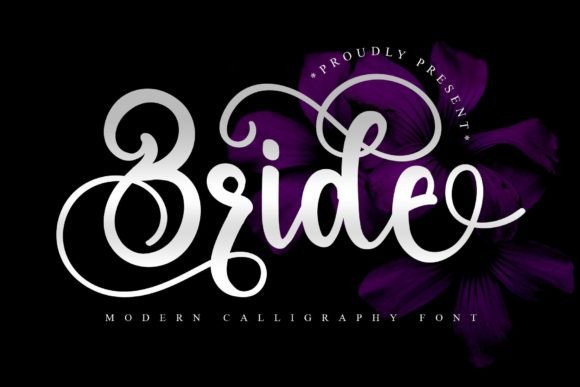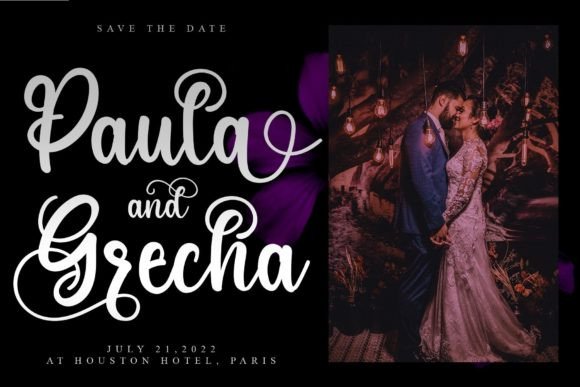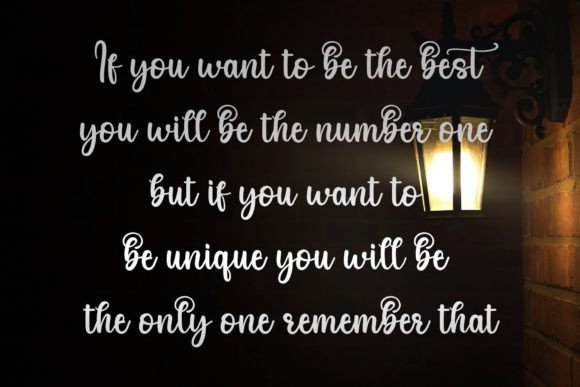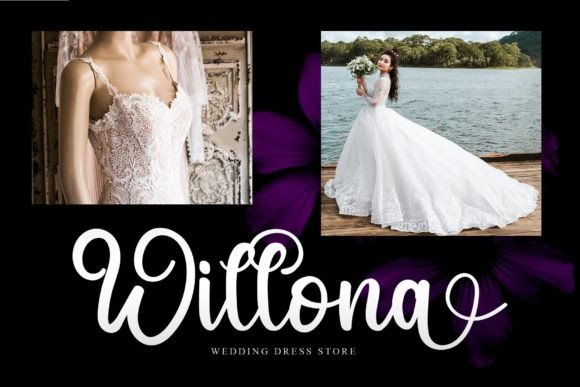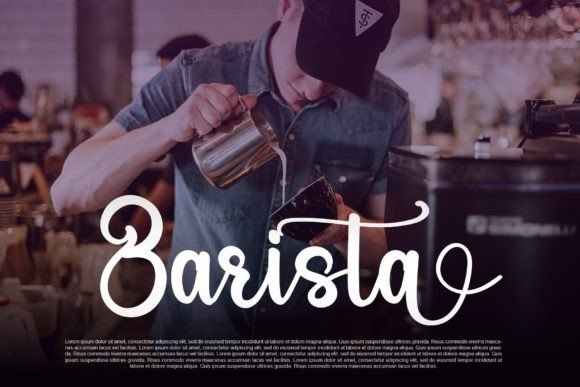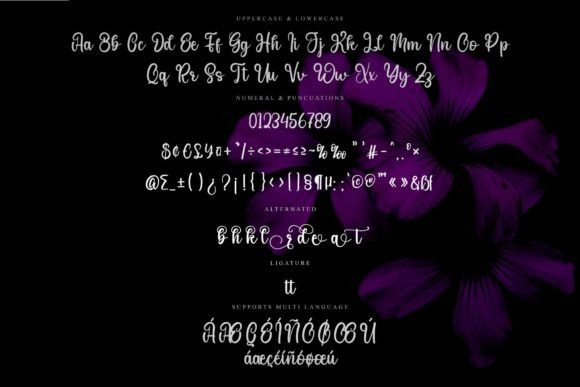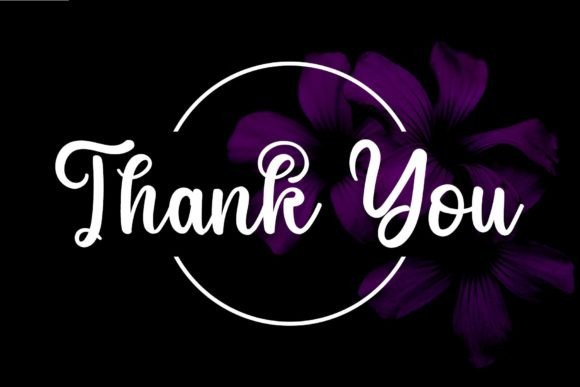
Bride Font
About Bride Font
“Bride” is a delicate, elegant, and flowing handwritten font that exudes a sense of grace and sophistication. With its beautiful and well-balanced characters, this font is designed to complement a wide range of designs, adding a touch of refinement to your creative projects.
The delicate nature of Bride’s letterforms contributes to an overall sense of elegance, making it a perfect choice for projects that require a subtle and graceful aesthetic. Whether you’re working on wedding invitations, branding, or any design that calls for a touch of sophistication, Bride is crafted to elevate your work.
The flowing quality of the font enhances its readability and creates a seamless and harmonious appearance. Each character is carefully designed to maintain a sense of balance, ensuring that the overall look is both beautiful and cohesive.
In summary, Bride is more than just a font; it’s a design tool that brings delicacy and elegance to your creative endeavors. Let Bride be the choice that adds a touch of grace to your designs, creating a visual experience that is both beautiful and timeless.